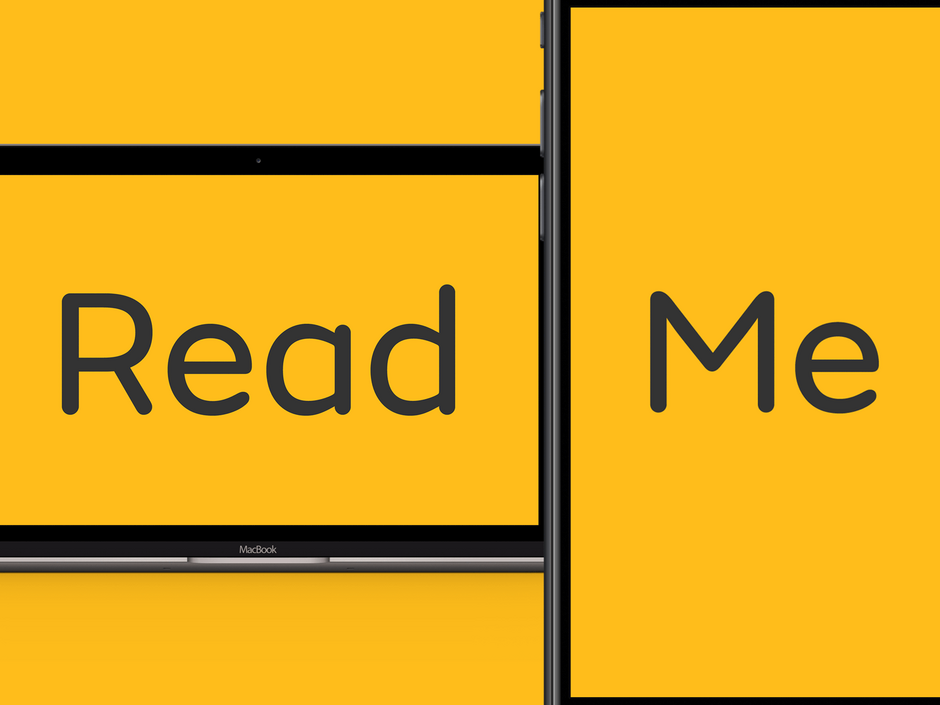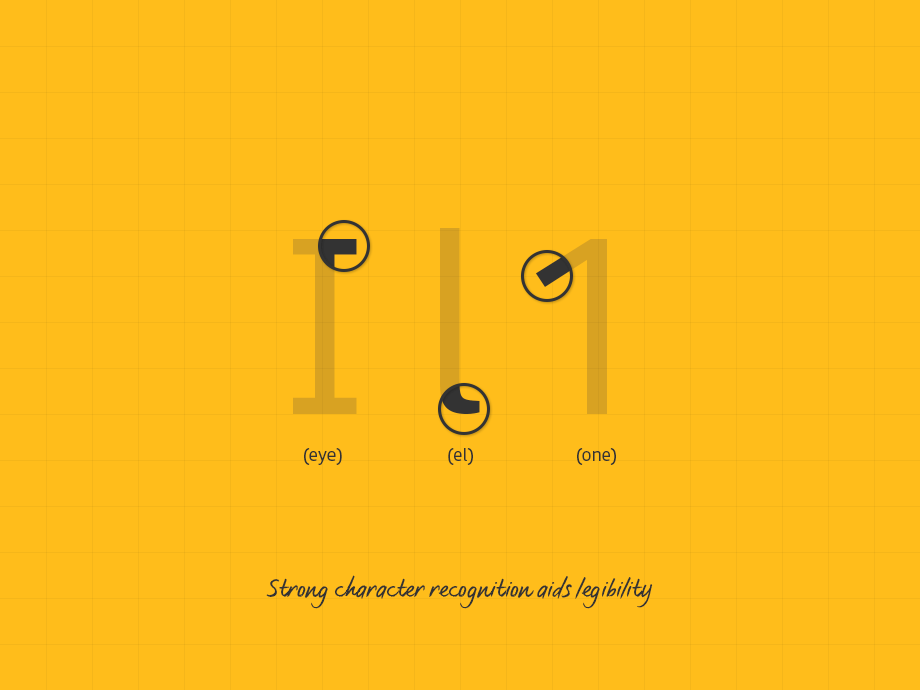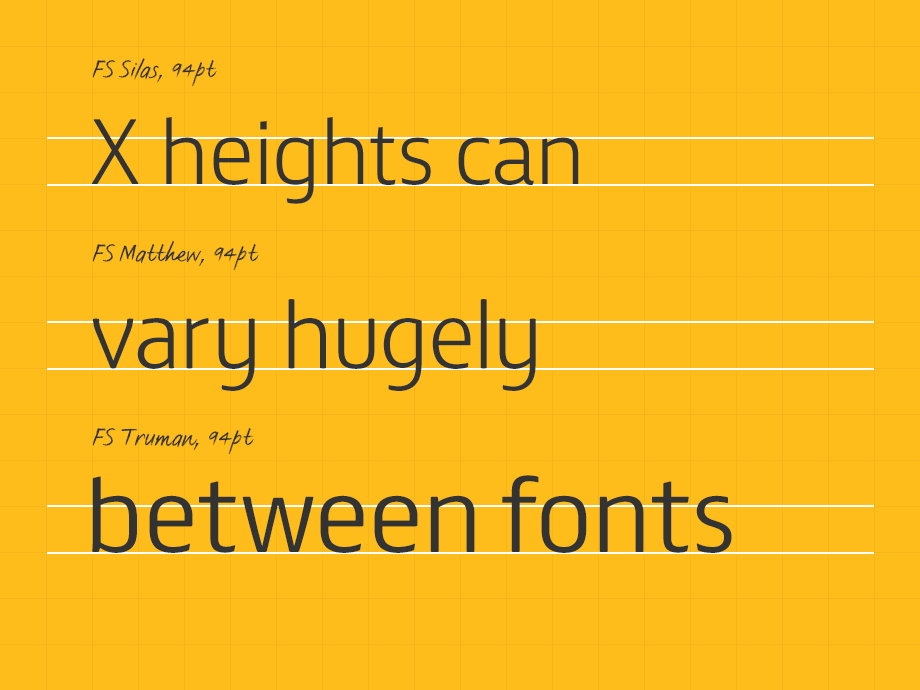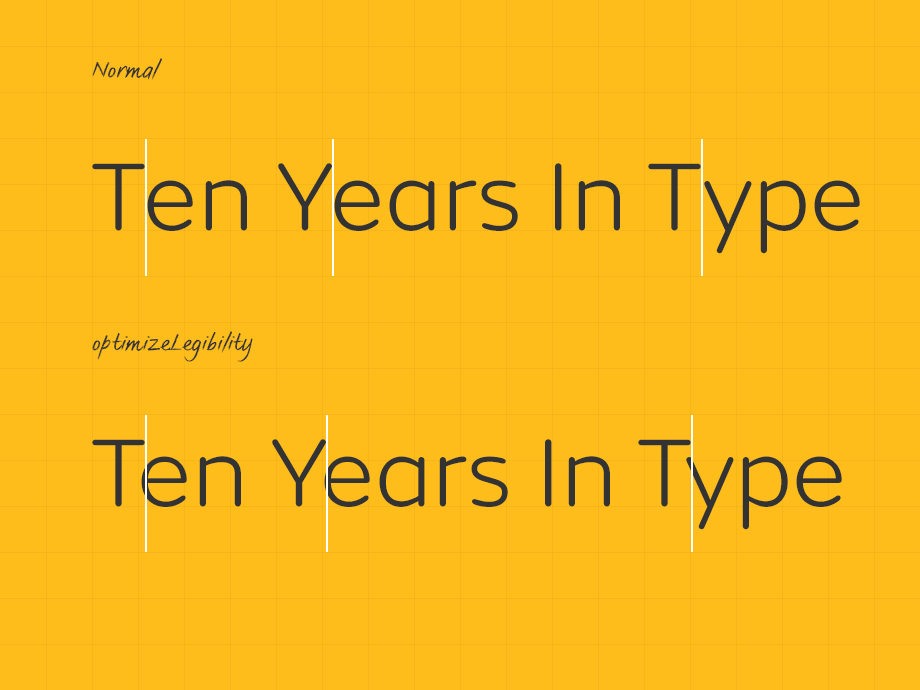
Accessible web typography: Design, application and technicalities
Phil Garnham Fonts for accessibility
Responsive web design has come of age and new modes of reading and engaging with text have emerged. Combined with recent developments in responsive ‘variable’ font technologies that enable fonts to display in varying widths, weights and contrasts, an awareness of accessible font attributes is now more important than ever.
Choosing an accessible typeface can appear to be a daunting task. The shear plethora of information regarding accessible type design, application and code methodology is quite staggering. One thing is clear: readability of content is probably the main goal for almost every website. The points here aim to be a sounding board for consideration and assessment when selecting a typeface for your brand.
Typeface design
Legibility vs readability: Legibility is concerned with the question ‘Can you recognise this letter or word?’ ‘Can you interpret and comprehend this word?’ Readability is concerned with ‘How comfortable are you in the reading experience?’ Accessible design is both legible and readable.
Serif vs sans: Our research in conjunction with Mencap indicated that sans serif fonts were considered the most accessible style. The level of detailing within serifed letters was considered overly complex by those with reading disabilities. Sans fonts have a simplified structure; their forms feel closer to our learned handwriting and therefore were deemed more legible. In browser, mono-linear sans letters display more cleanly at smaller pixel sizes, particularly in the harshest rendering environments.
Letter shapes: Choosing a typeface with strong character recognition qualities aids legibility. Those with visual impairments can find certain letters confusing, therefore it is important that potentially confusing letter shapes are clearly defined. Common offenders are the ‘I’ (eye), ‘i’ (lower-eye), ‘l’ (el) and ‘1’. A closed shape ‘C’ can look like an ‘O’ at small pixel sizes. Open counter shapes aid reading. The combination of ‘r’ and ’n’ can read like an ‘m’. Long ascenders and descenders are important too. They help in defining outer word shapes that the eye can scan and interpret swiftly.
Font proportions: A large x-height and moderate to wide proportions is most accessible. The x-height of a typeface is important because it often infers a greater white space inside a letter, aiding definition and clarity. Often condensed and compressed width styles are promoted as enabling a fluid and more responsive layout. It is important to realise that by implementing a condensed font where space is limited (mobile) you could also be reducing accessibility. Extensive testing of the fonts used in context is key.
Hinting: Hints are an added layer of data within a font that describe the degree by which a pixel should be turned on or off to improve the quality of a letter at a specific pixel size. Despite improvements in screen resolution, font hinting is still an essential type design process. Most foundries automate hinting and achieve very good results, but keep expectations in check. No amount of hinting will make a heavy weight font look good at 12px size.
Type application
Weight: Establish a hierarchy by assigning roles for each font. A hierarchy enables the eye to break down information into a clear experience. Use open, mid-range weights for sub-heads and body. Set up a test to evaluate across various browsers and environments or use Browser Stack for an overview. Weight can change dramatically from one environment to the next. If desired, implement Type Rendering Mix to balance out appearance.
Size: Size is important. Be mindful that every font sits at a different scale on the type-body and that actual sizes can vary hugely between fonts. 14px in one font can be equivalent to 18px in another. The average size for body ranges from 14px — 16px. As a general rule 16px plus is considered the most inclusive. Font-size can also impact on rendering quality. Find the sweet-spots that deliver the best rendering results for your primary platforms.
Line-height: Give type room to breathe. Your eye needs to be able to track from one line to the next with ease. The Web Content Accessibly Guidelines recommend a value of 1.5 for body copy. Evaluate, reduce or increase as necessary.
Line length: Scanning long lines of text is testing for your eyes. Research indicates that the average online line length is around 70 – 80 characters. Limit lines to no more than 16 words.
Type alignment: Centered text is not accessible text. The act of centering creates different starting positions. This creates issues for the visually impaired.
ALL CAPS: Never use ‘ALL-CAPS’ in body copy setting. Use Small Caps if short-length capitalisation is required. They are great for emphasis, abbreviations and sub-headers.
Variable web font files are on the horizon and the flexibility of a now standard font family is soon to be blown wide open. Both designer and developer will be able to tailor the weight and width of the typefaces that are used on a site and in specific environments. Let’s create a more readable web with the basic principles of accessible typography online.